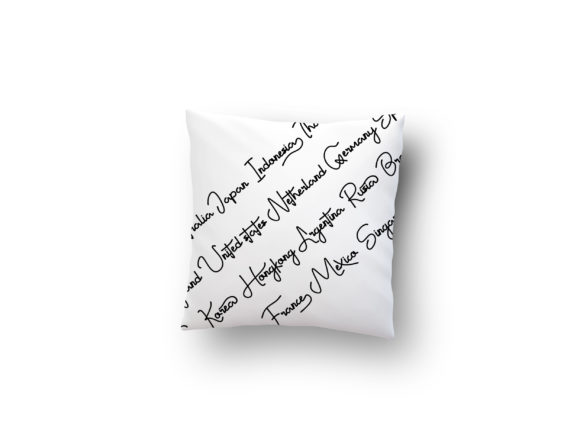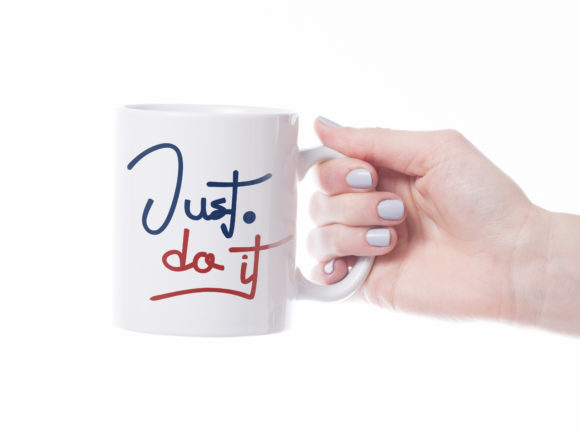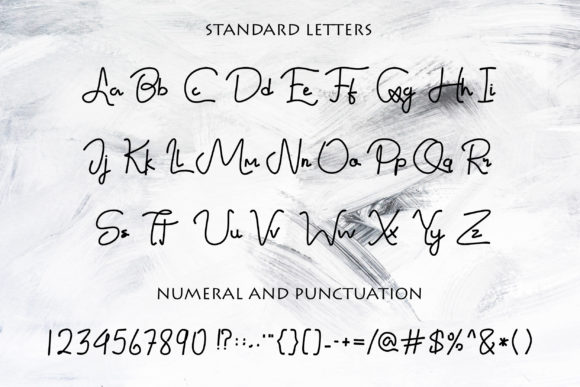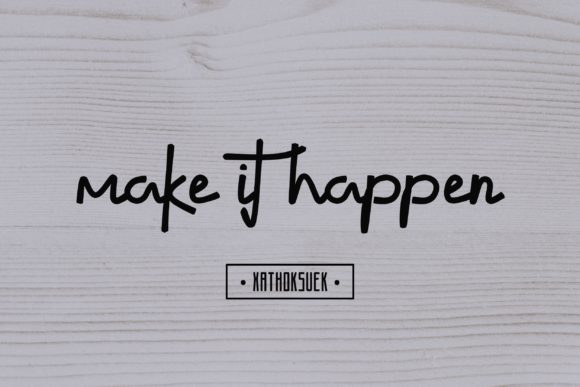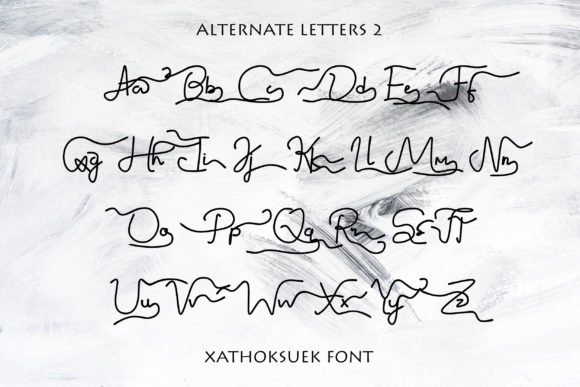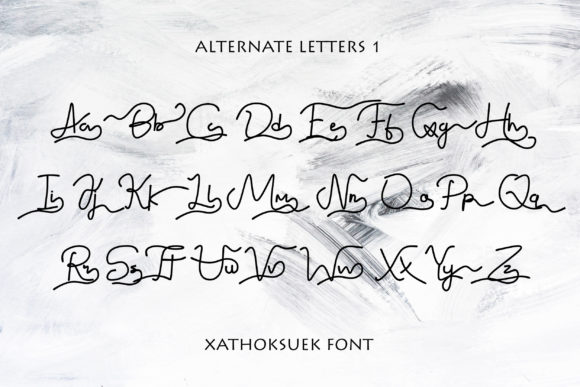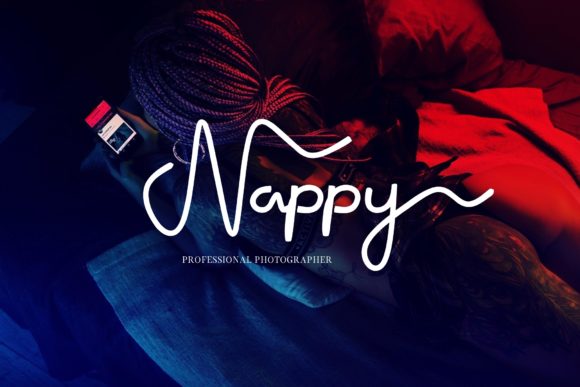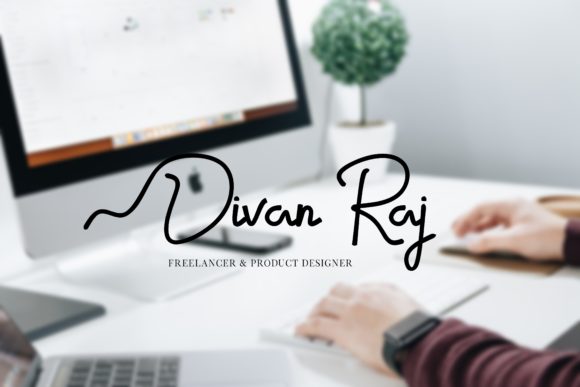
Xathoksuek Font
About Xathoksuek Font
The Xathoksuek is a awesome signature font. It’s suitable for branding projects, home decor, wedding invitations, or just as a simple text with a background image.